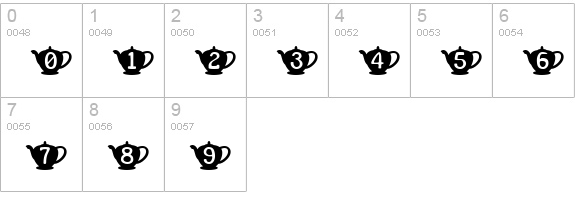
Teapot Font Details
Teapot font is a stunning and versatile typeface that is sure to add a touch of elegance to any design project. With its sleek and modern lines, this font is perfect for everything from logos and branding to headlines and posters. The beauty of Teapot font lies not only in its stylish appearance but also in its versatility. It can be used for both formal and informal occasions, making it the go-to choice for designers who want to make a statement. Whether you are designing a wedding invitation or creating a bold advertising campaign, Teapot font will help you stand out from the crowd. One of the best things about Teapot font is that it is available for free download at FontsMarket.com. This means that you can start using this incredible font right away without having to worry about any costs. FontsMarket.com is a trusted source for high-quality fonts, and they make it easy for designers to access a wide variety of fonts for all their creative needs. So why wait? Download Teapot font today and unleash your creativity with this remarkable typeface. Whether you are a professional designer or a hobbyist, this font will elevate your designs to new heights. With its clean and sophisticated look, Teapot font is sure to become a favorite in your font library. Don't miss out on the opportunity to add this incredible font to your collection – get it now for free at FontsMarket.com!